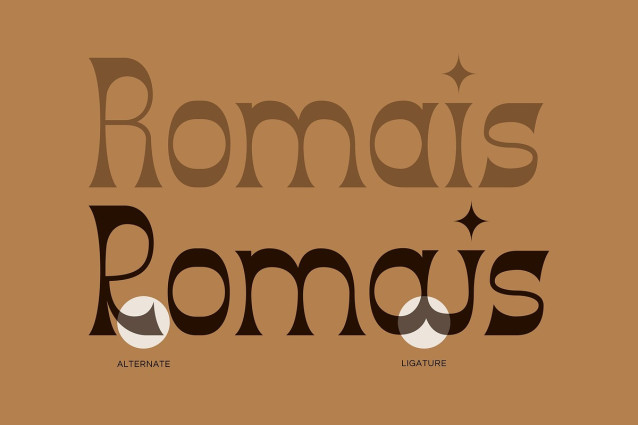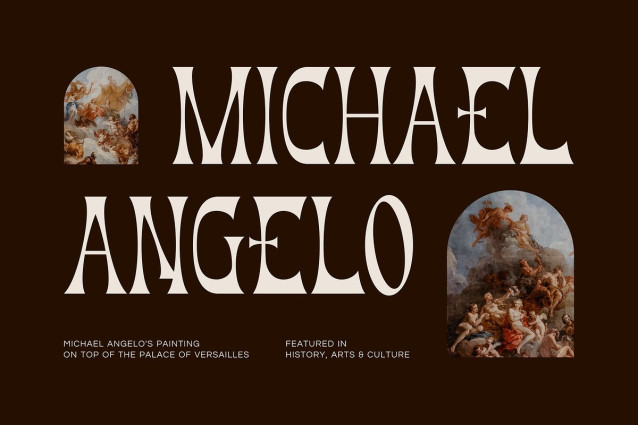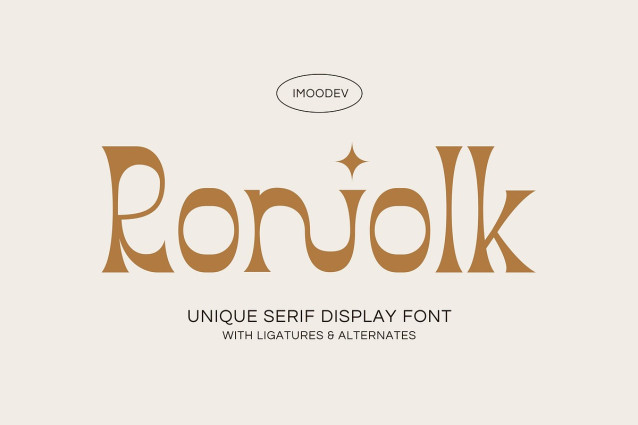
Roniolk Font
Roniolk Font is a retro serif typeface that blends retro charm with modern polish. Each letter has a cinched waist and flared, triangular serifs, It’s has a strong baroque or renaissance inspired vibes, pairing elegantly with classical art.
The font includes a variety of ligatures and alternates that add personality and fluidity to your typography. Perfect for modern vintage aesthetics, museum branding, luxury product packaging, fashion campaigns, artisanal product labels, book covers for historical fiction or classical literature, boutique branding, and creative posters.